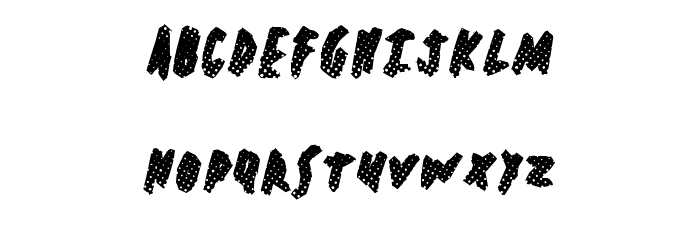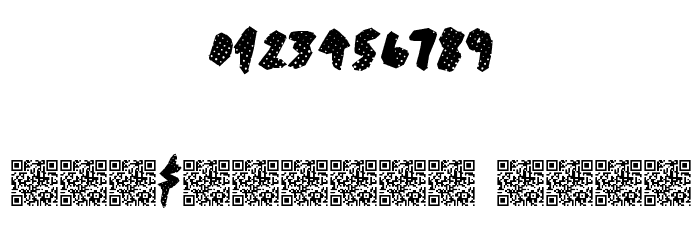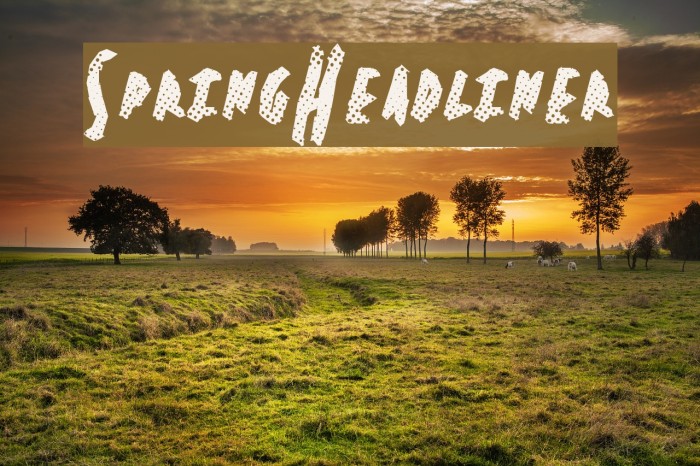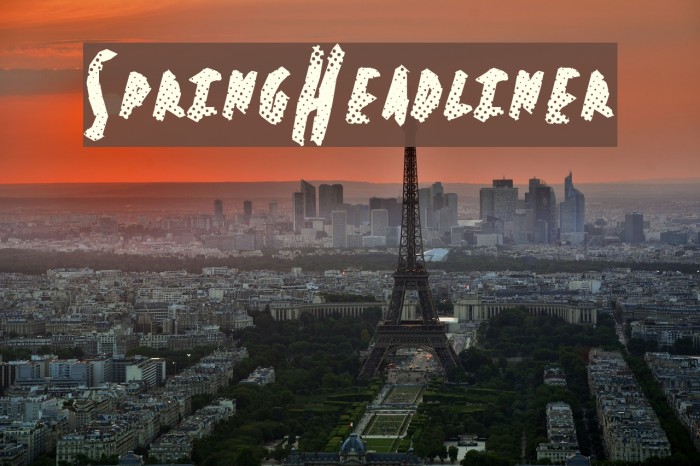
SpringHeadliner Font
This font features a bold, textured style with a playful and dynamic appearance. The characters are designed with a unique dotted pattern that adds a sense of movement and energy. The uppercase and lowercase letters maintain a consistent style, with slightly irregular edges that contribute to its informal and artistic look. The numbers and special characters follow the same design principles, ensuring a cohesive visual experience. This font is ideal for projects that require a bold statement and a touch of creativity.
A bold, textured font with a playful, dotted pattern.
- Proposed Projects: Ideal for posters, event flyers, children's book covers, and creative branding.